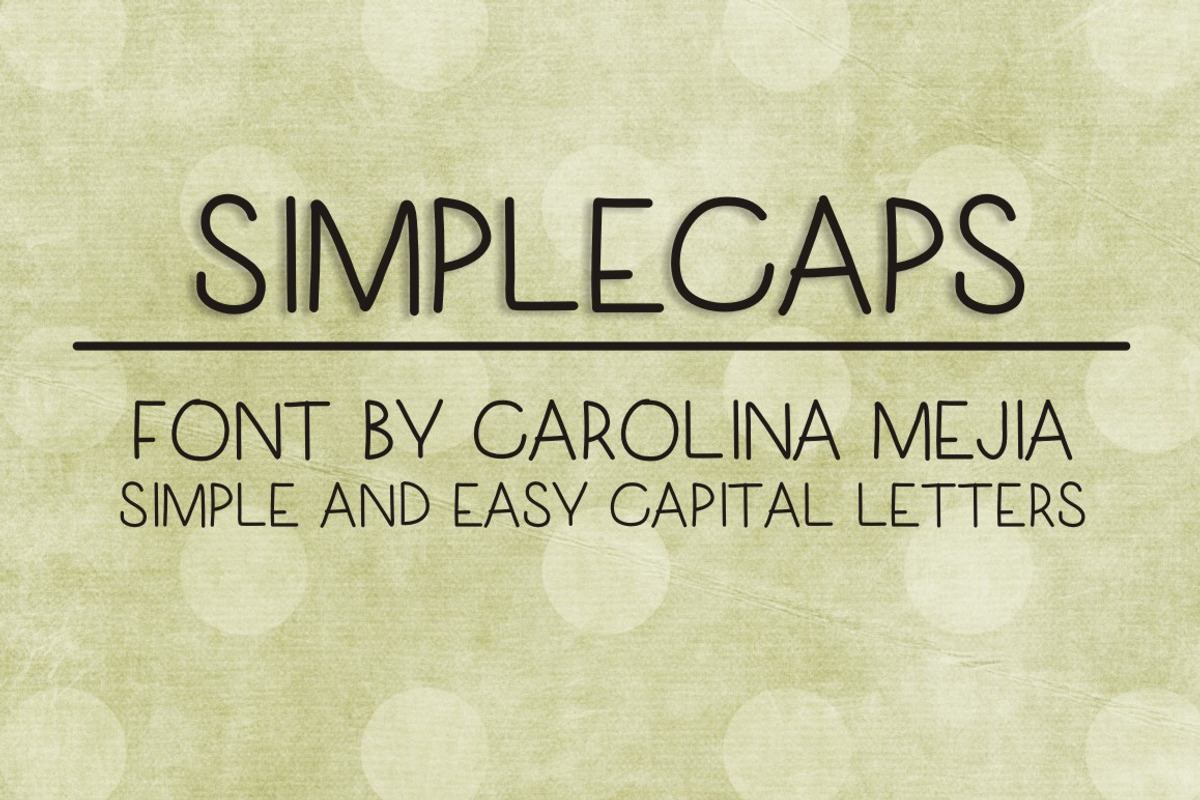
SIMPLECAPS FONT Free Download is the perfect typeface for designers who are looking to add a bold, clean, and modern touch to their projects. With its all-uppercase style and geometric structure, this font brings a sharp and professional vibe to any design. Whether you're working on logos, headlines, posters, or social media graphics, SIMPLECAPS FONT is a versatile choice that stands out.
Designers love the way this font adds impact without sacrificing simplicity. From branding projects to personal portfolios, SIMPLECAPS FONT Free Download is a go-to resource for creatives who want to test drive an eye-catching, easy-to-read font. It’s compatible with all major design software and works smoothly across both Mac and Windows platforms.